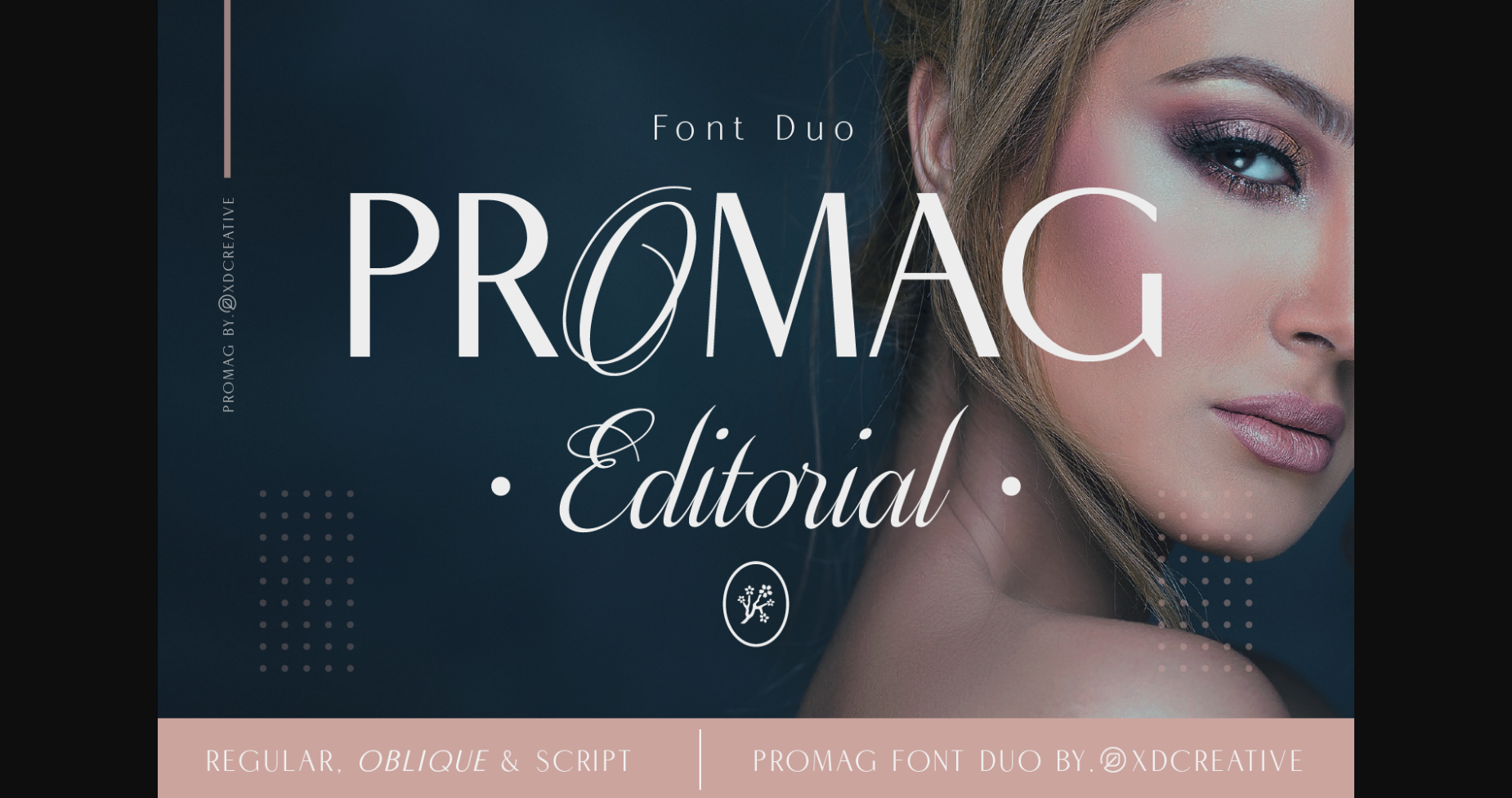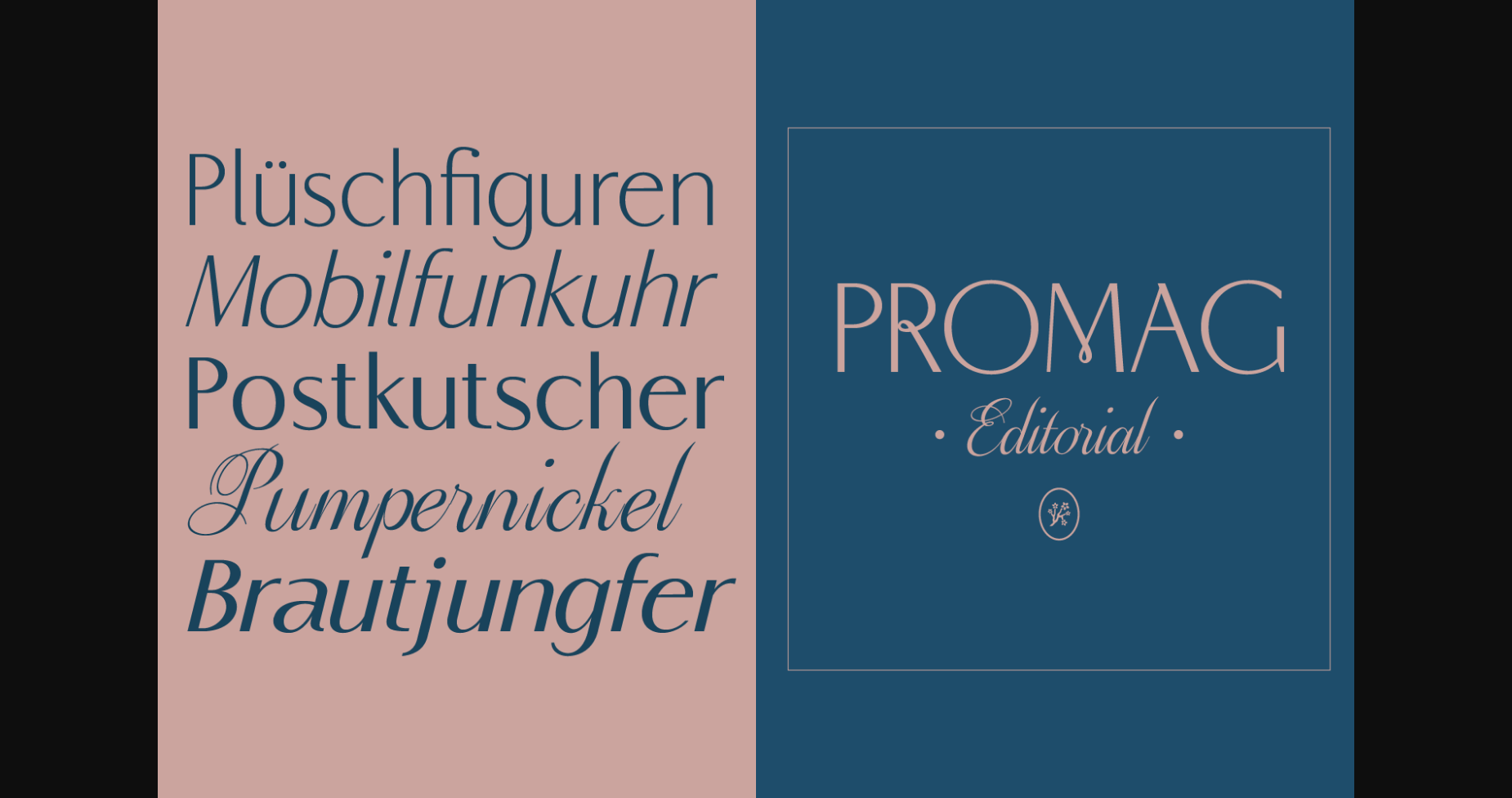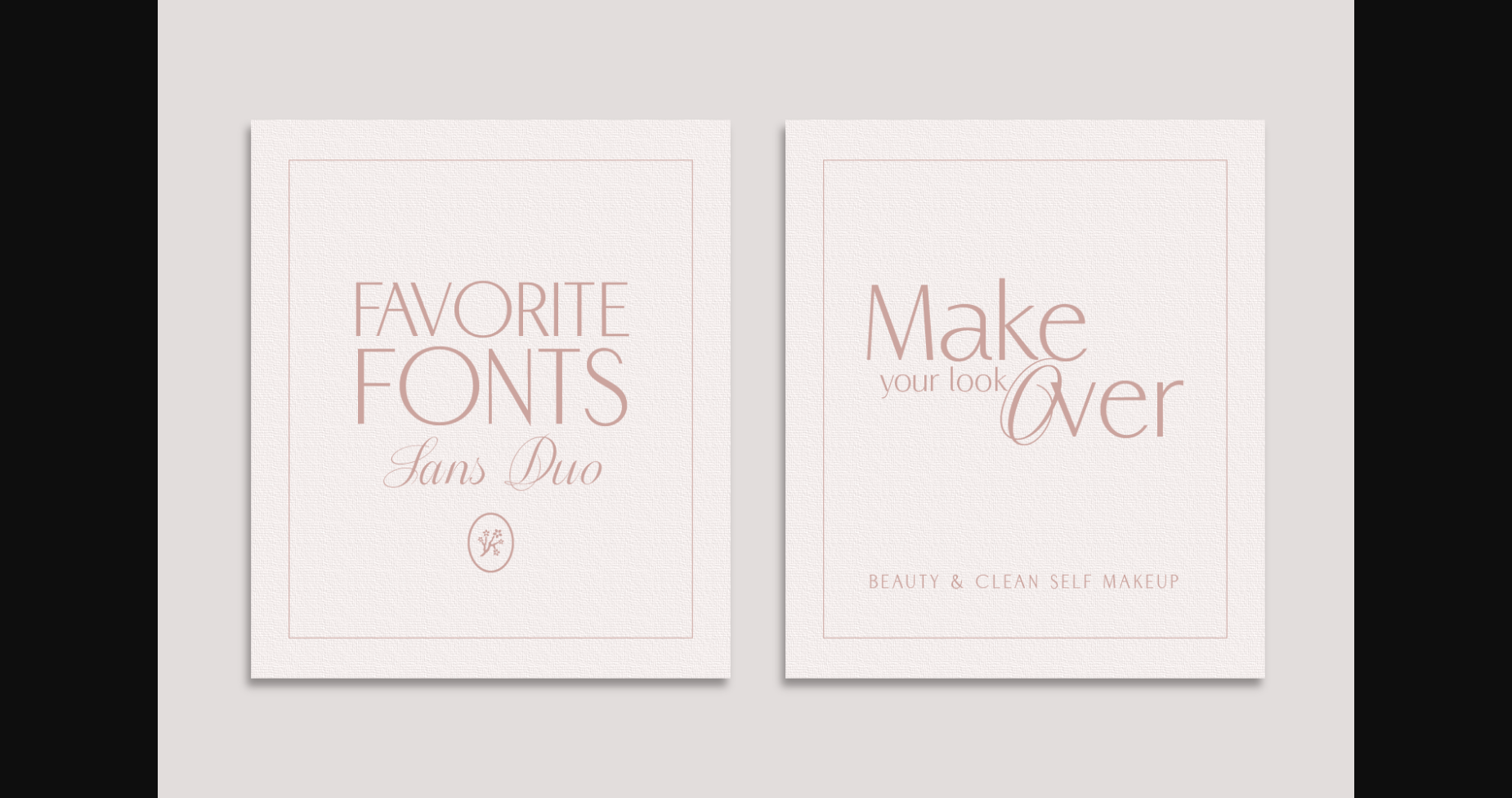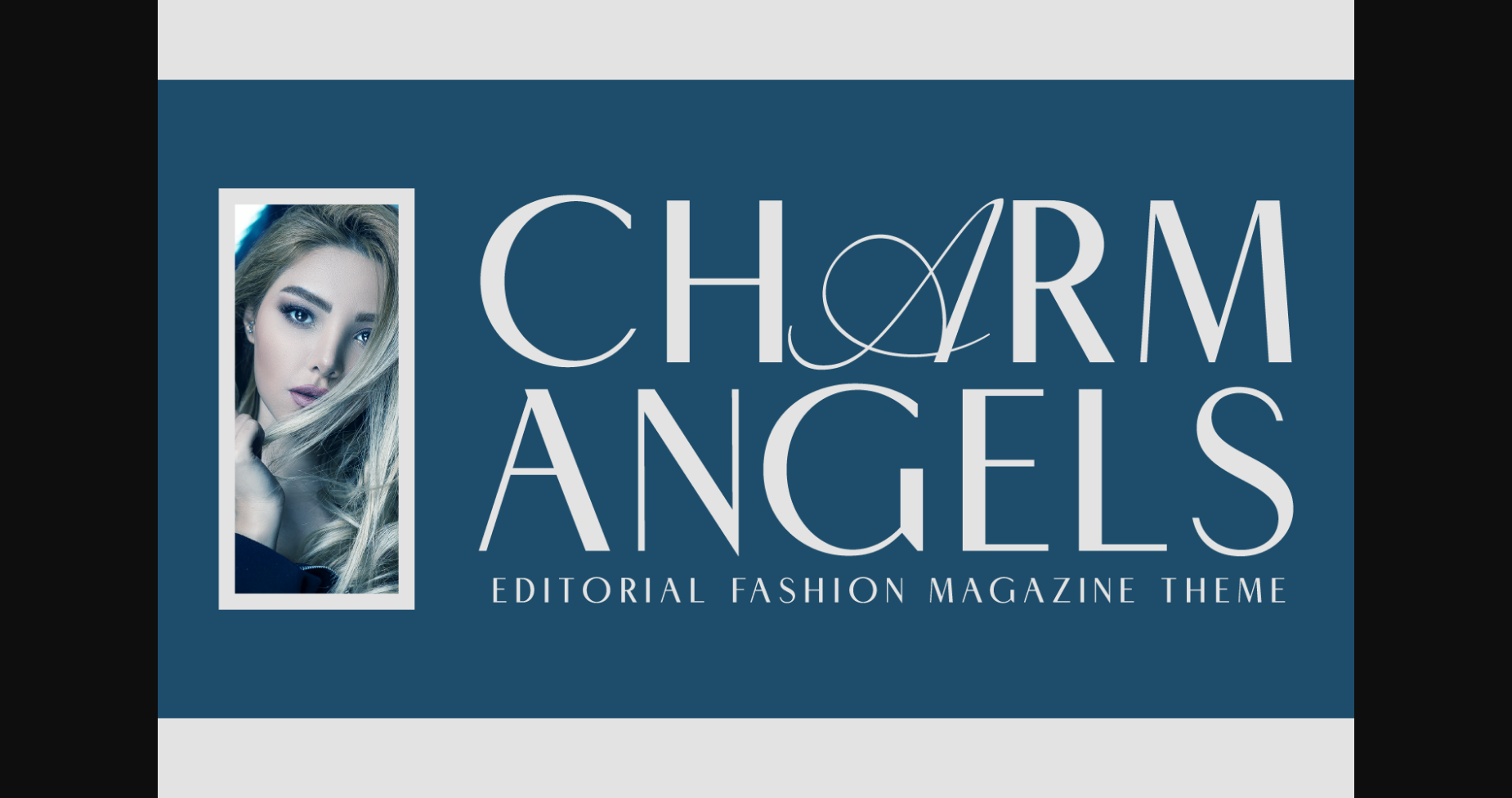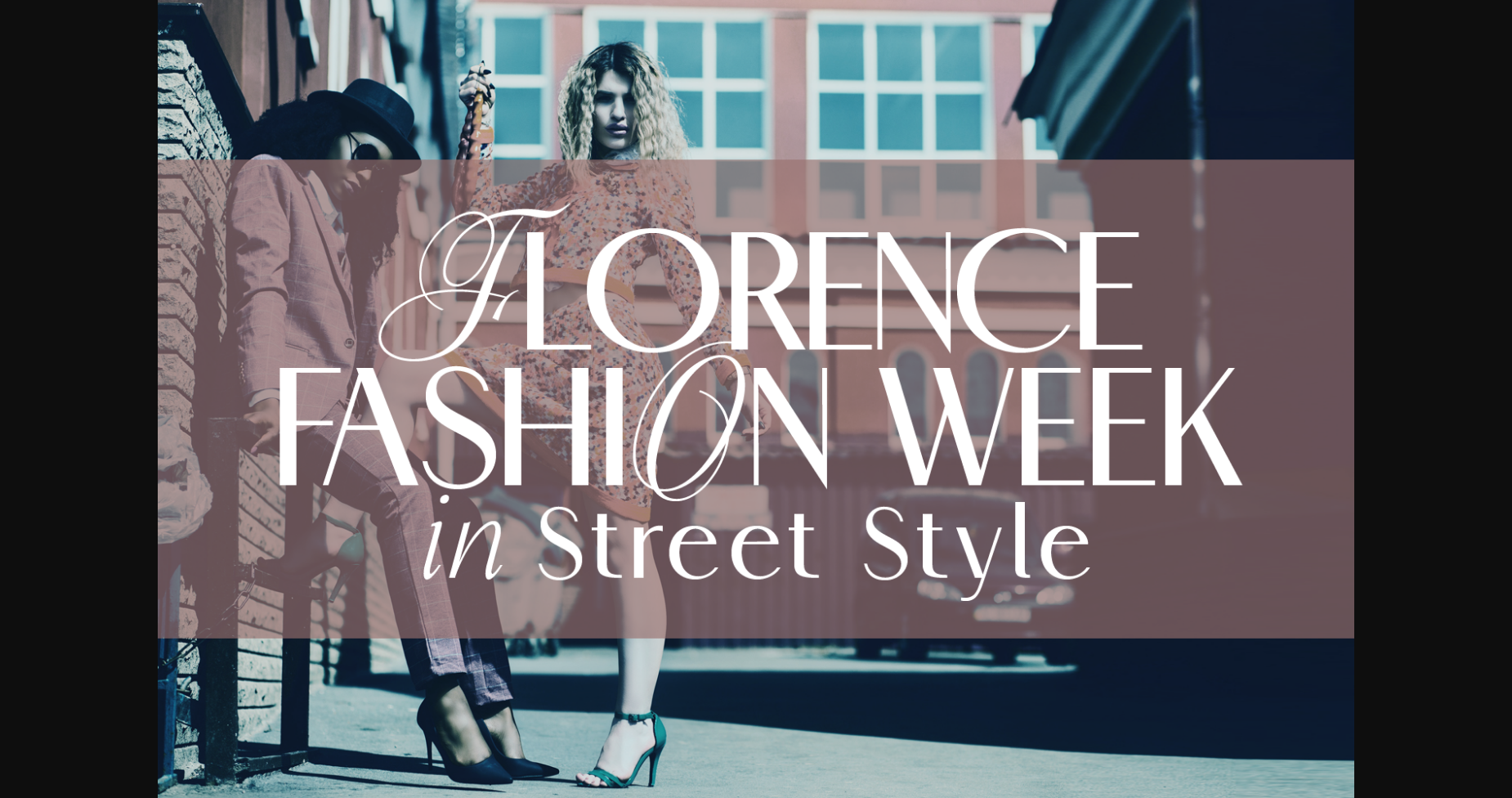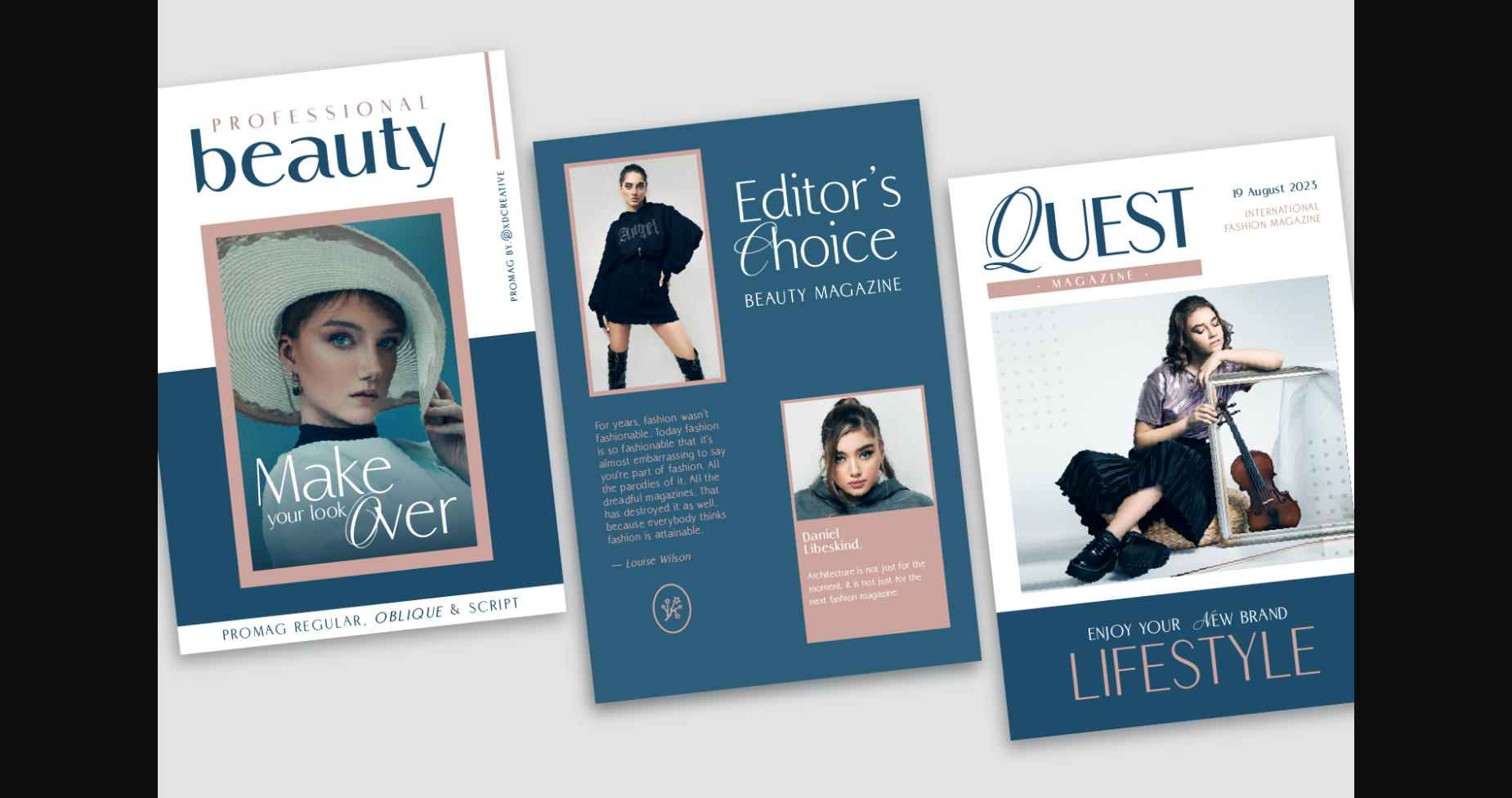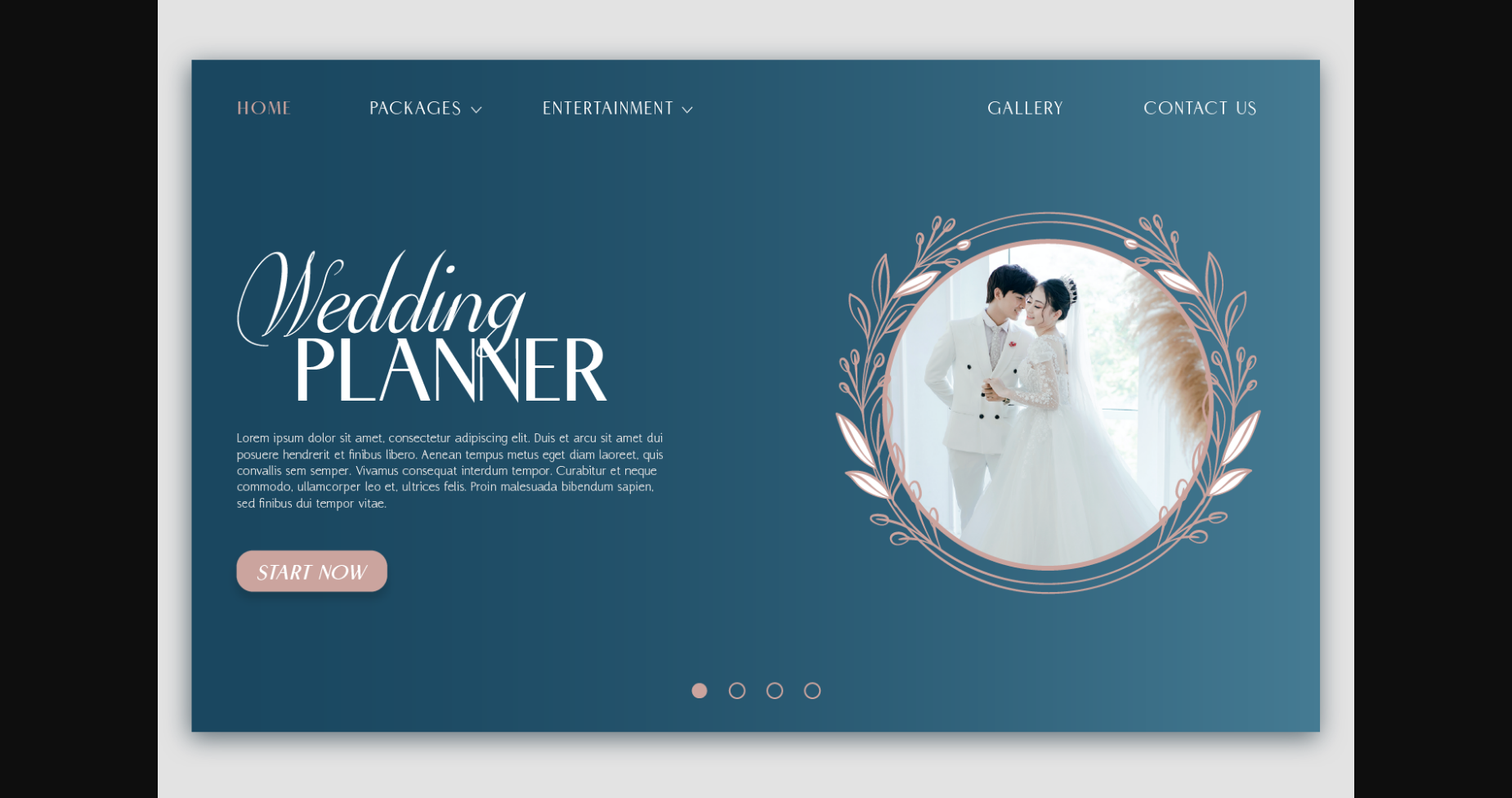
Promag Duo Font
About Promag Duo Font
Promag is a stylish and elegant font duo (sans serif and script). Fall in love with its incredibly distinct and timeless style and use it to create spectacular designs!